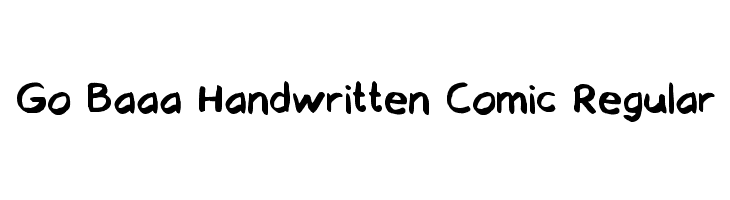
( Fonts by 1PrivateTime )
Casual handwritten sans-serif with playful, organic strokes.
( Fonts by Md Shohail Bhuian )
Playful, handwritten sans-serif with tall, narrow letters.
( Fonts by Maxx Lopez )
Bold, playful handwritten style with rounded, informal strokes.
( Fonts by BlackFridayFont FMF )
Casual handwritten font with playful, uneven strokes.
( Fonts by Pinisiart )
Casual handwritten script with smooth, rounded strokes.
( Fonts by tutustype )
Casual handwritten script with monoline strokes and a natural flow.
( Fonts by Rebeca Lucena )
Casual handwritten font with playful, irregular shapes.
( Fonts by Erlina Graphic )
A casual, handwritten script with tall, narrow, and rounded letterforms.
( Fonts by Maulana Creative )
Casual handwritten script with connected, flowing strokes.
( Fonts by Albert Kalingga )
A lively handwritten script with a casual, cursive style.
( Fonts by Sarif Letter )
Elegant, monoline handwritten script with flowing connections.
( Fonts by Aestherica Studio )
Casual handwritten font with a playful, friendly vibe.
( Fonts by arisSome1 )
Casual handwritten sans-serif with playful, uneven strokes.
( Fonts by MJB Letters )
A modern, handwritten script with tall, narrow letters and a casual feel.
( Fonts by Denny Sutanto )
Casual handwritten sans-serif with tall, narrow, playful characters.
( Fonts by Viswell Studio )
Loose, handwritten script with a natural, informal feel.
( Fonts by Scratchones )
A loose, handwritten script with a casual and informal feel.
( Fonts by StringLabs )
Elegant, thin handwritten script with tall, flowing forms.